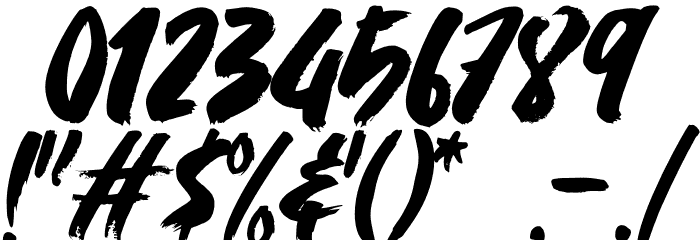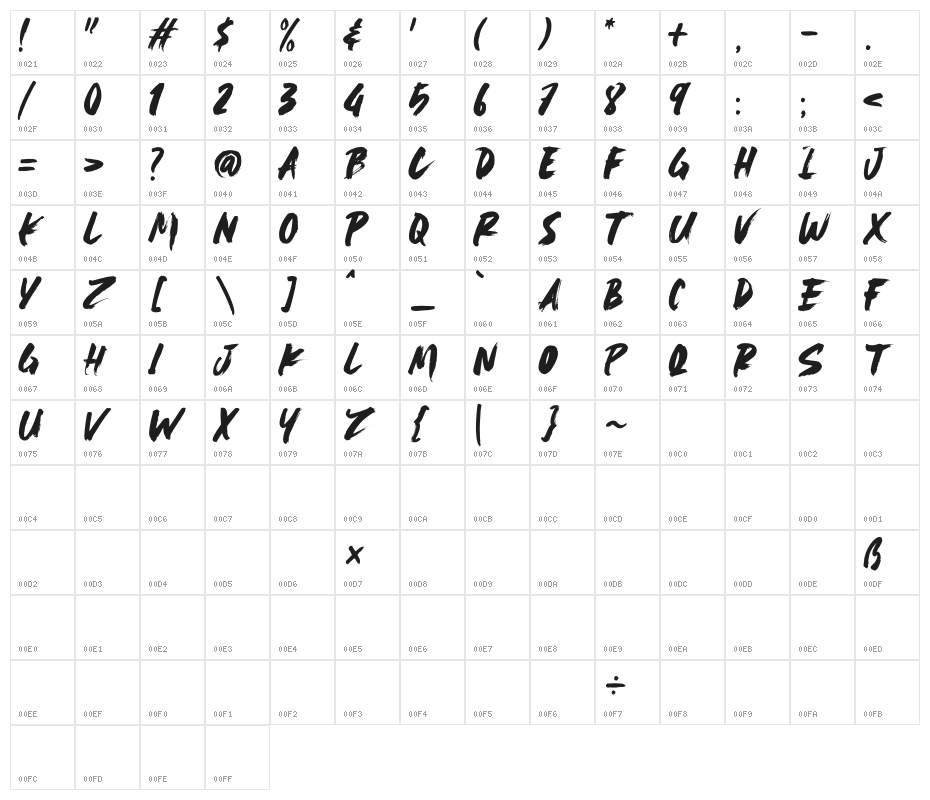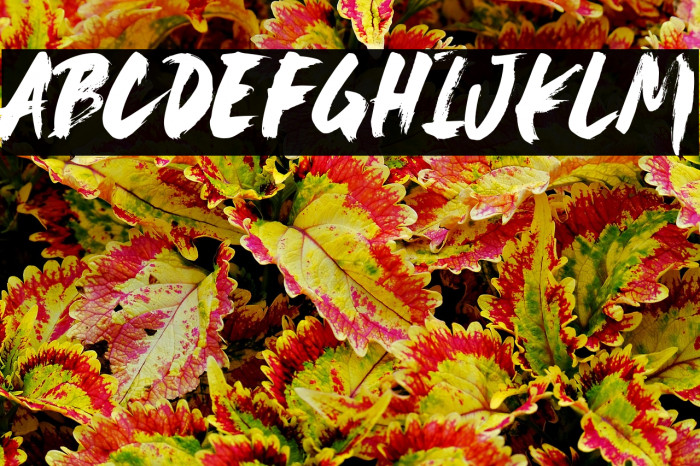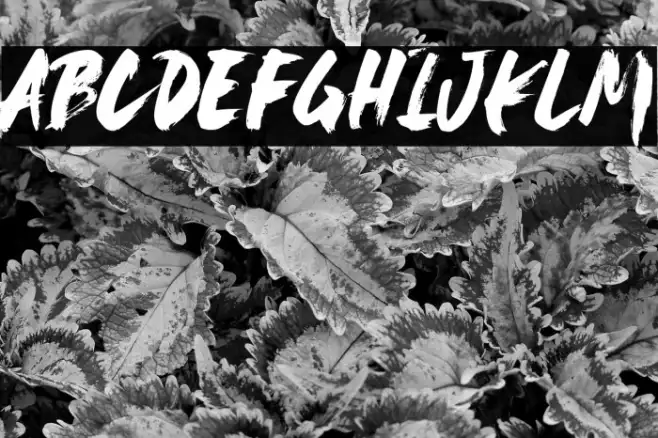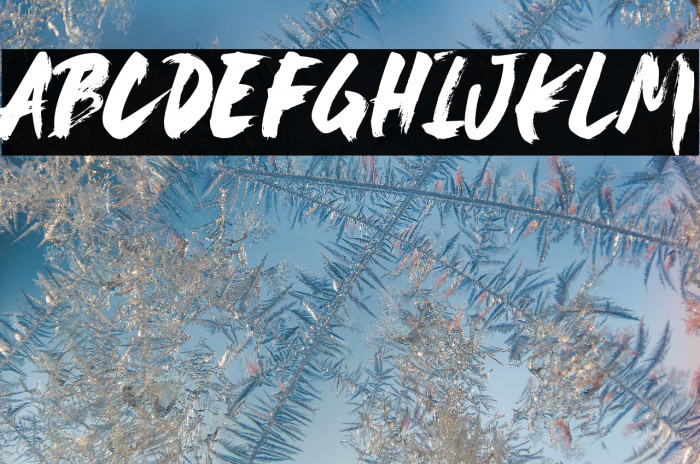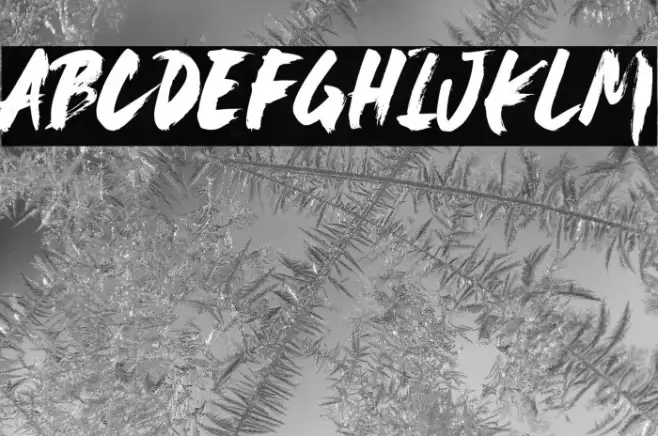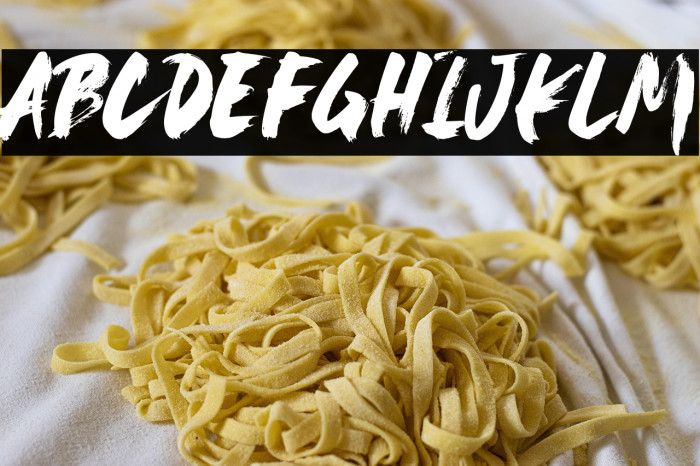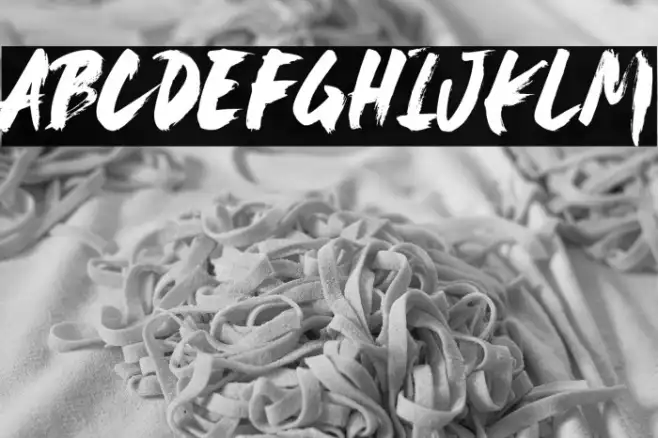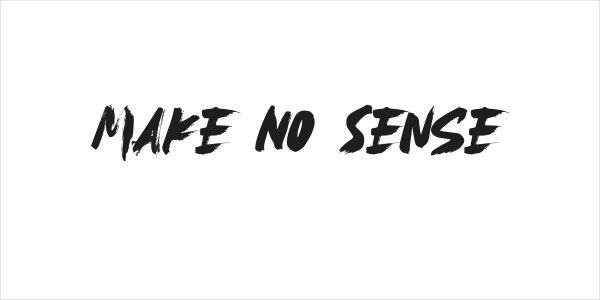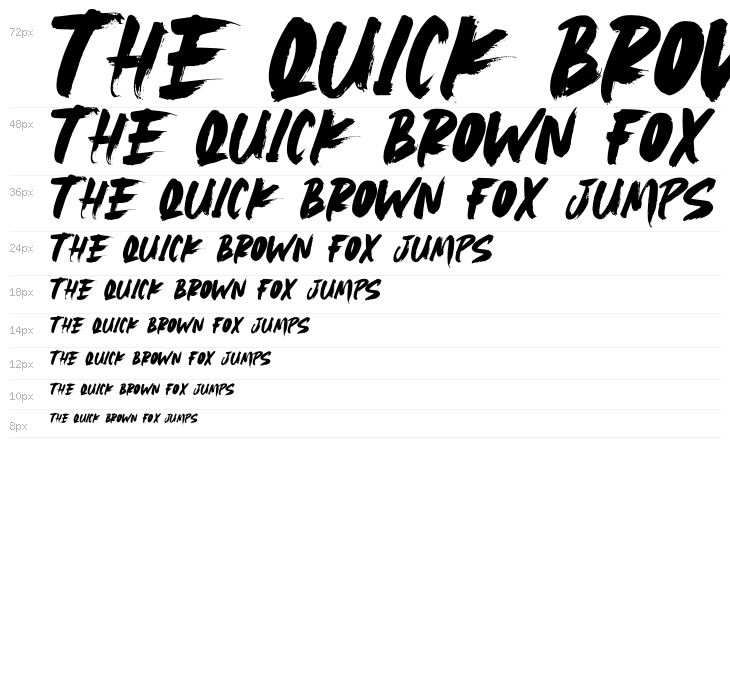
Make No Sense Font
Make No Sense Description
This font features a bold, expressive brush style that exudes energy and dynamism. The strokes are thick and uneven, giving it a hand-painted appearance that is both artistic and spontaneous. Each character is unique, with varying stroke widths and angles, creating a sense of movement and fluidity. The uppercase and lowercase letters maintain a consistent style, while the numbers and special characters integrate seamlessly, enhancing the font's versatility. Its raw and edgy aesthetic makes it ideal for projects that require a strong visual impact.
| Proposed Projects | Ideal for posters, album covers, branding, and any creative projects that require a bold statement. |